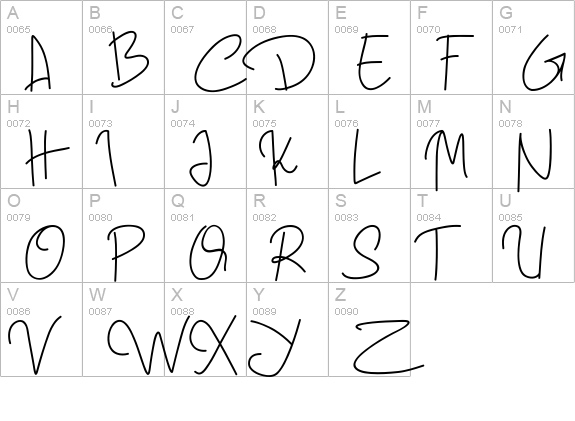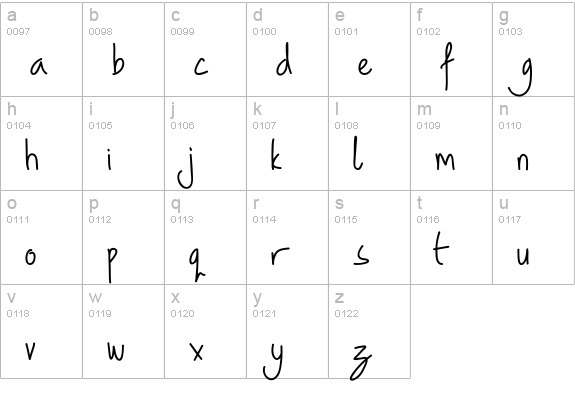
Signature - Geovana Font Details
Signature - Geovana is a free for personal use font in the Script > Handwritten category, designed by madeDeduk. It has been downloaded 685 times and is available for Windows, Mac and Linux.
Signature - Geovana is an elegant and sophisticated handwritten font that exudes a sense of luxury and class. With its flowing lines and delicate curves, this font is perfect for adding a personal touch to any project. Whether you're designing wedding invitations, branding materials, or social media graphics, Signature - Geovana will elevate your work to the next level.